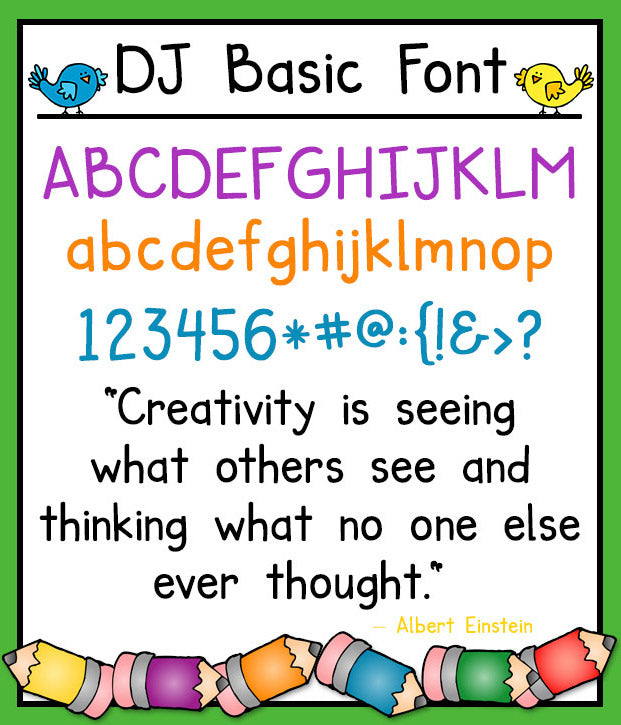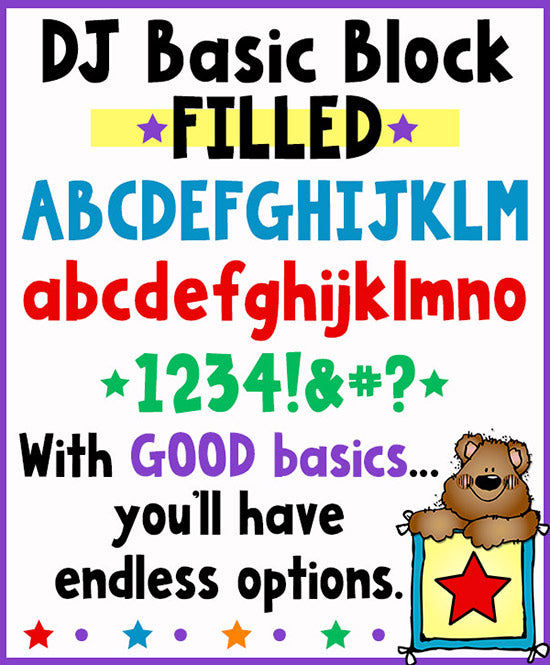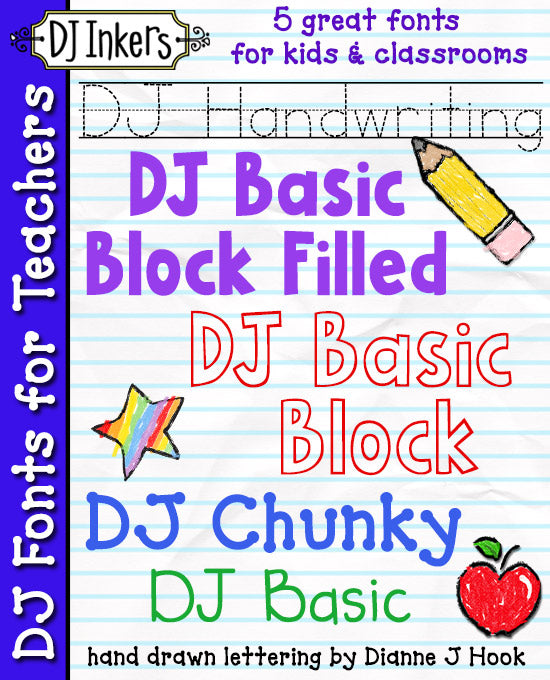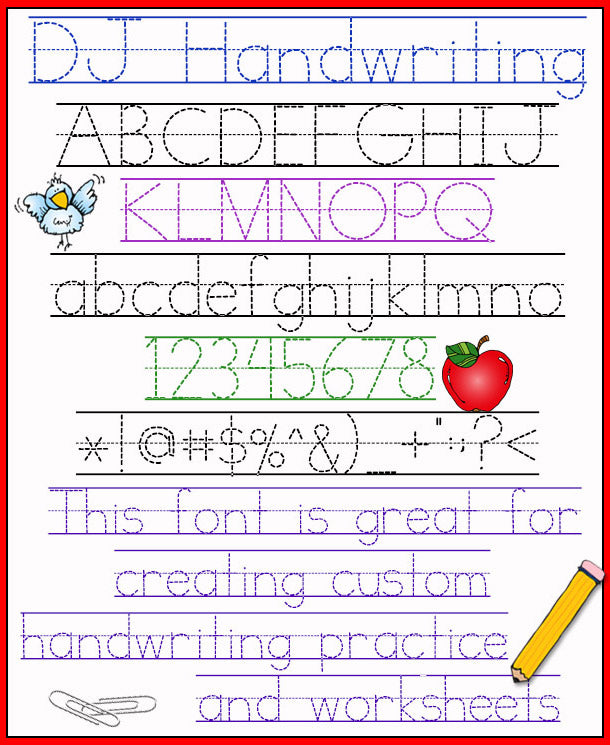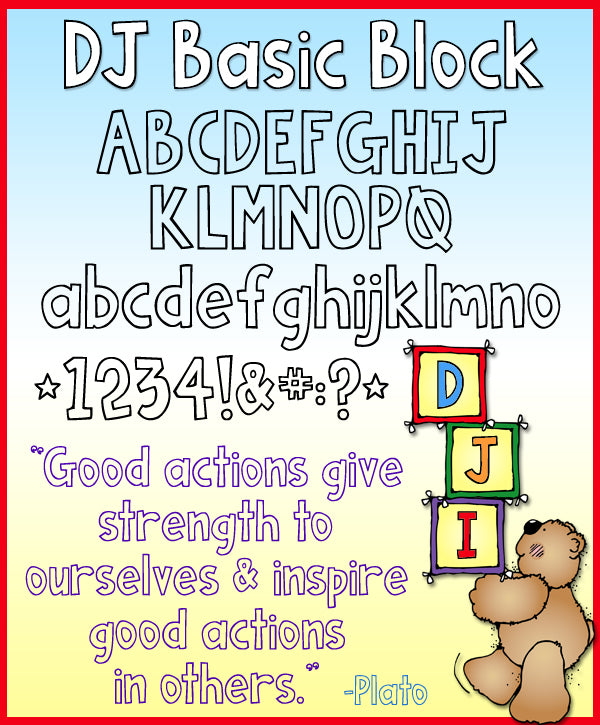
DJ Fonts For Teachers - 5 Font Bundle
Make your classroom creations stand out with DJ Inkers' collection of hand-drawn fonts for teachers. Perfect for customizing everything from worksheets and handouts to newsletters and notes home, these unique fonts will add a touch of personality and fun to every project.
Set includes 5 Font-astic Fonts:
DJ Basic, DJ Basic Block Filled, DJ Chunky and our most versatile teacher tool, DJ Handwriting. Fonts also sold separately... but this set saves you a bundle! Download instant smiles today!